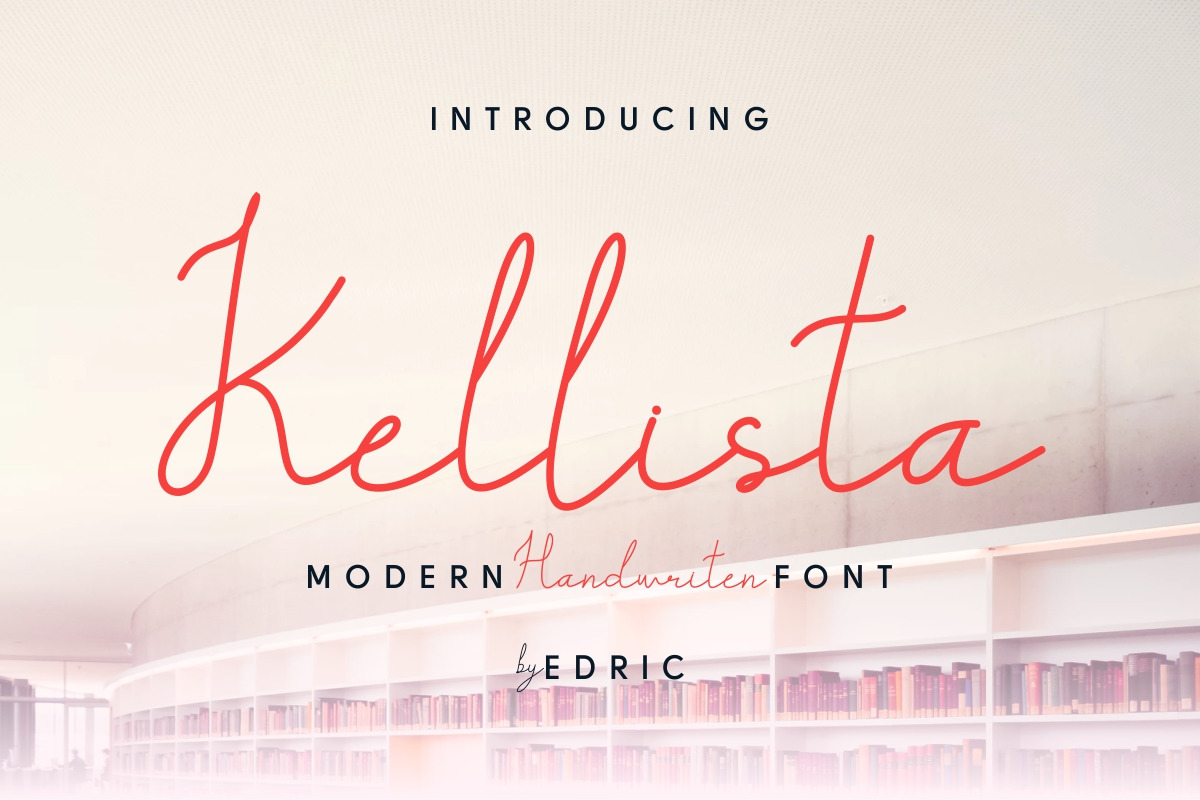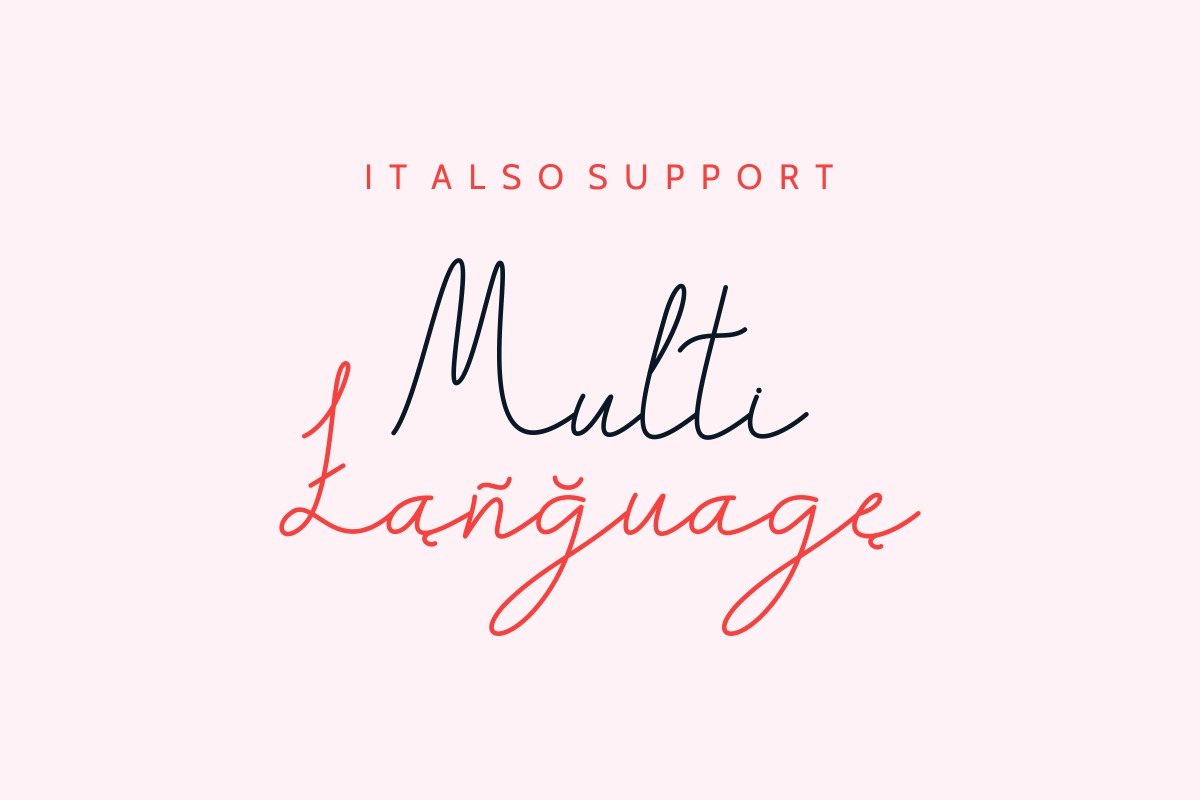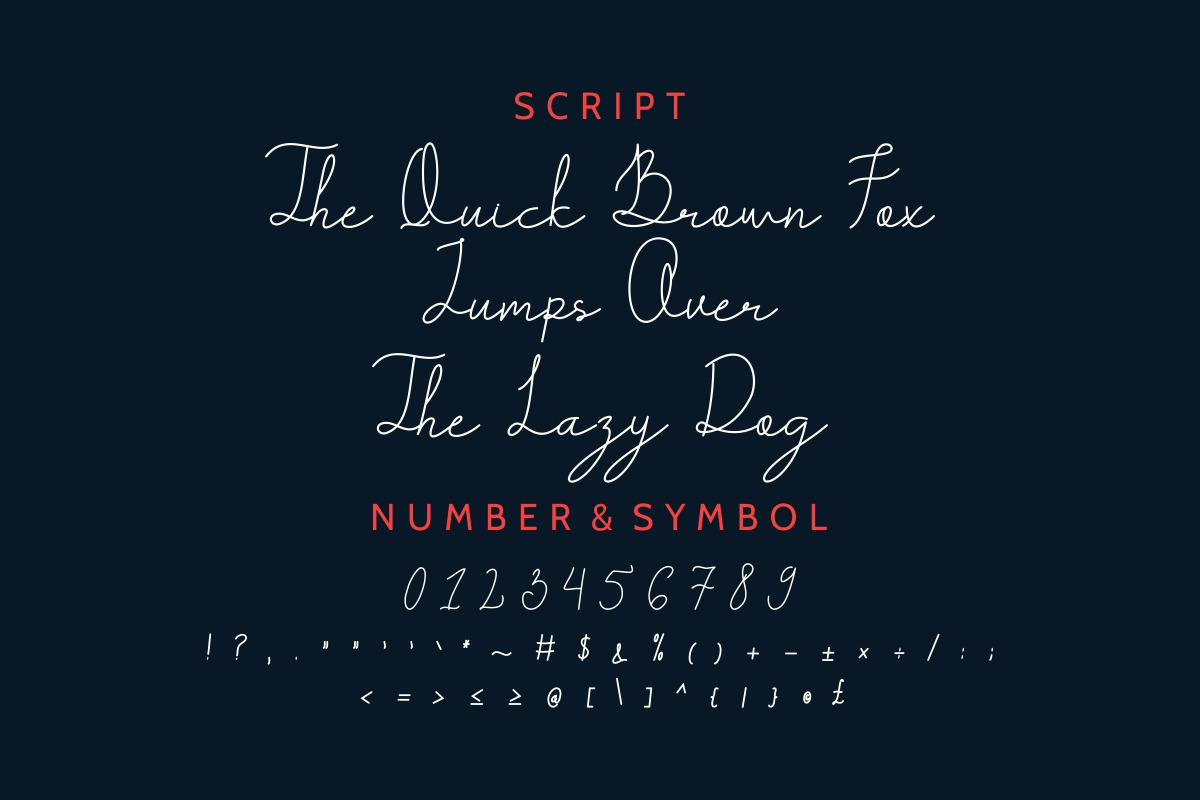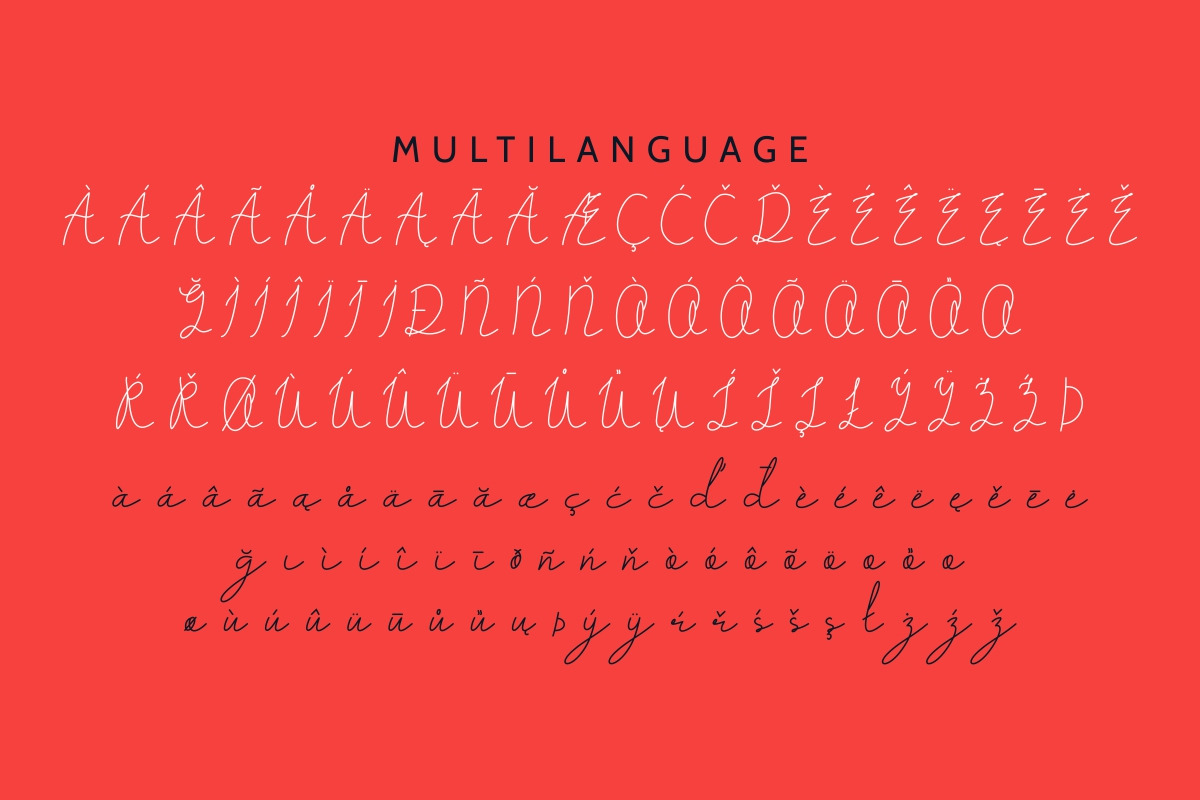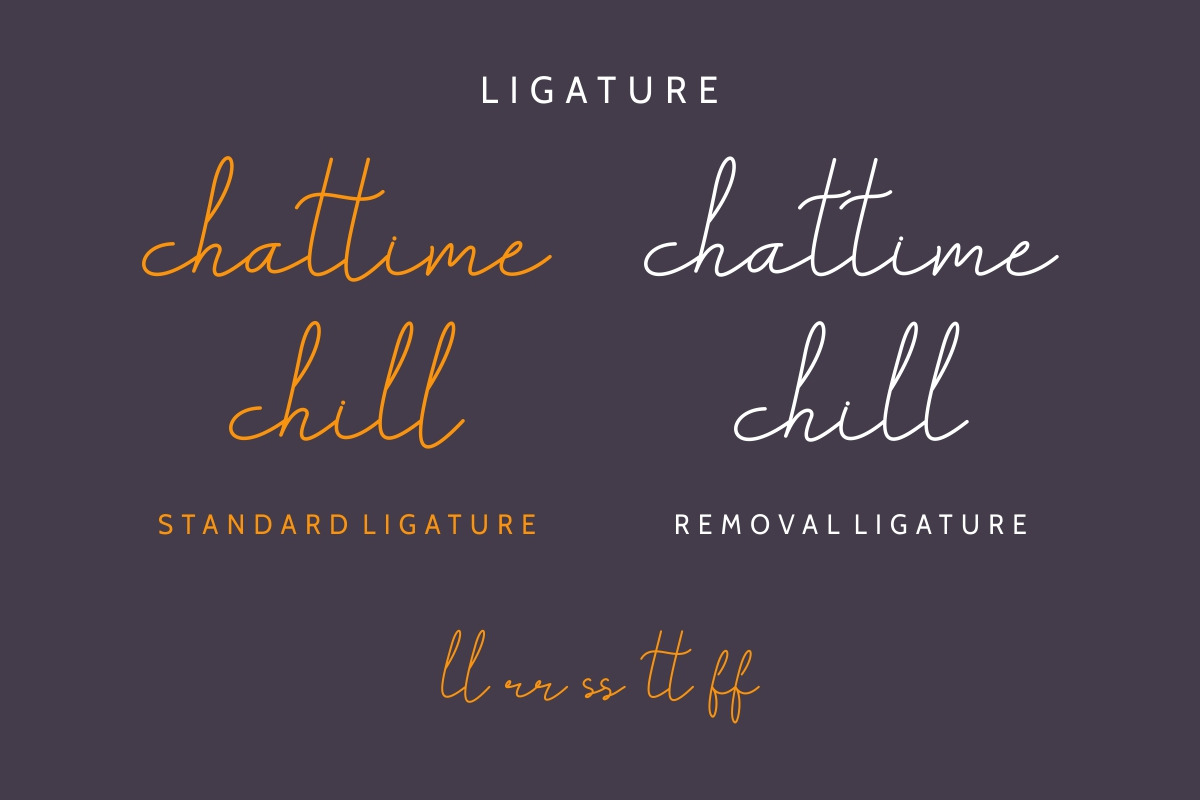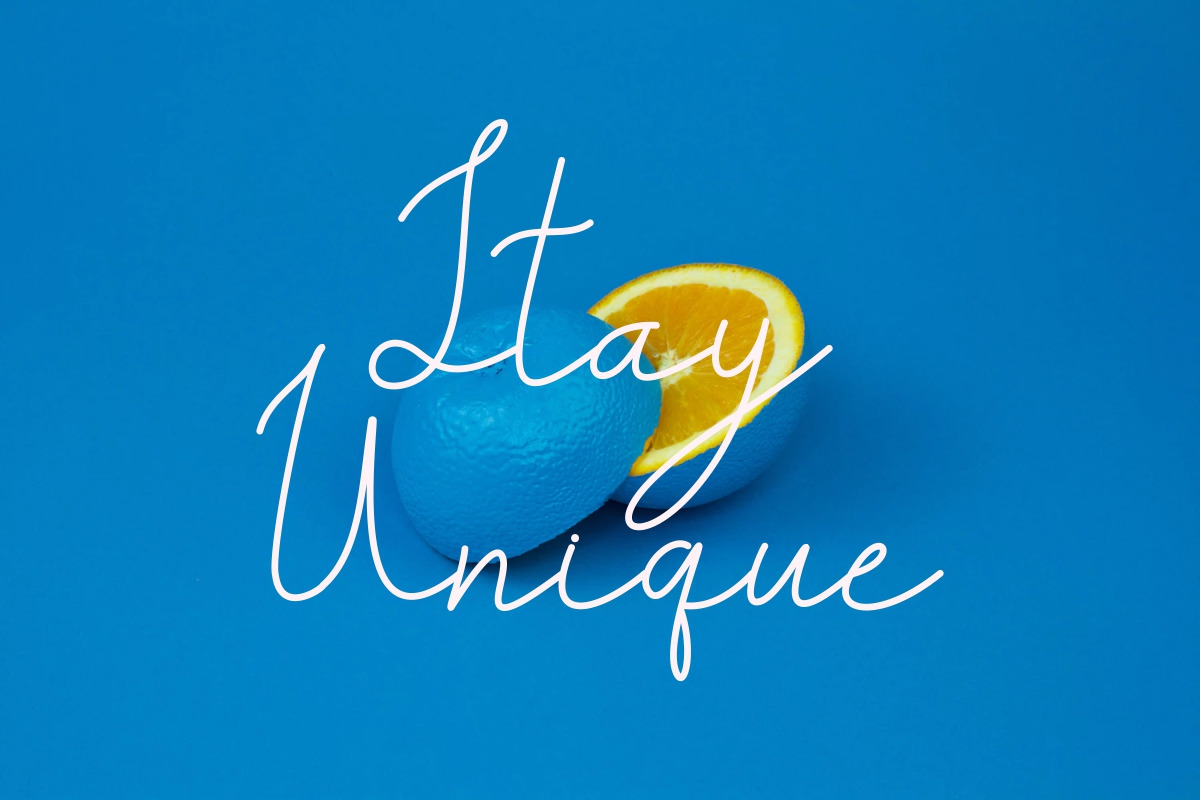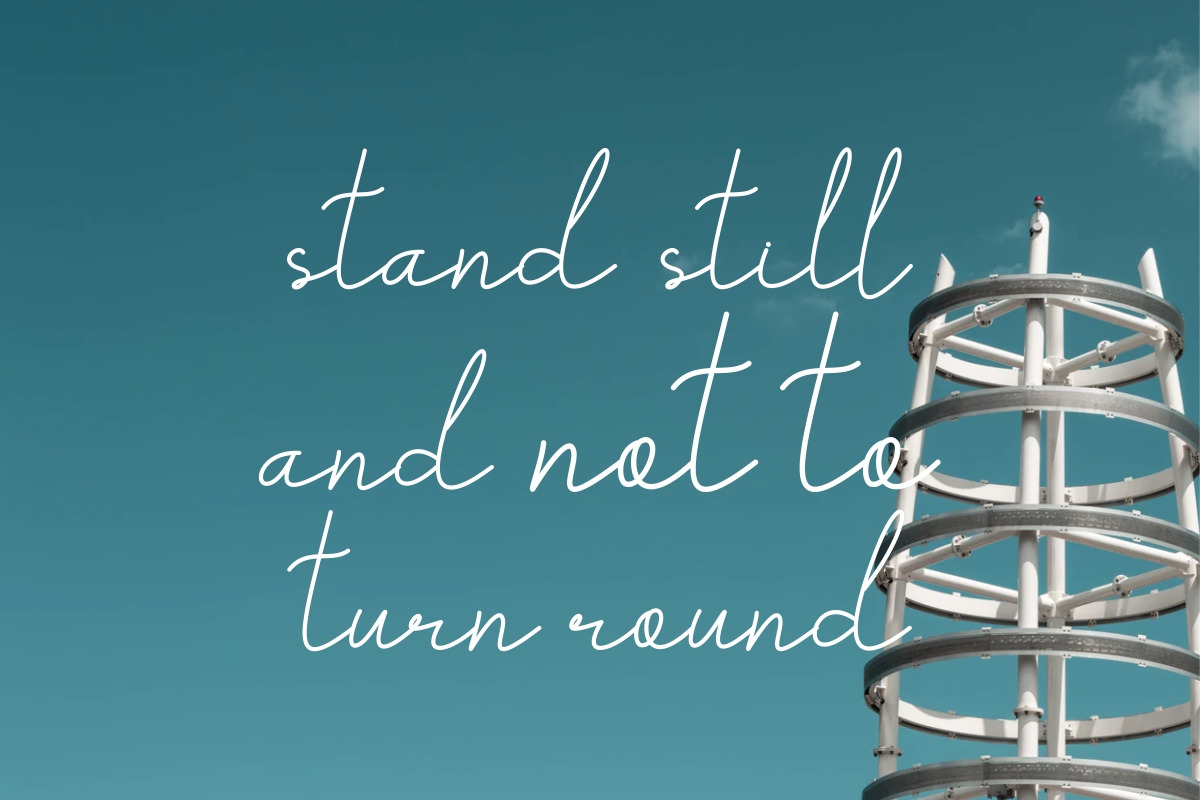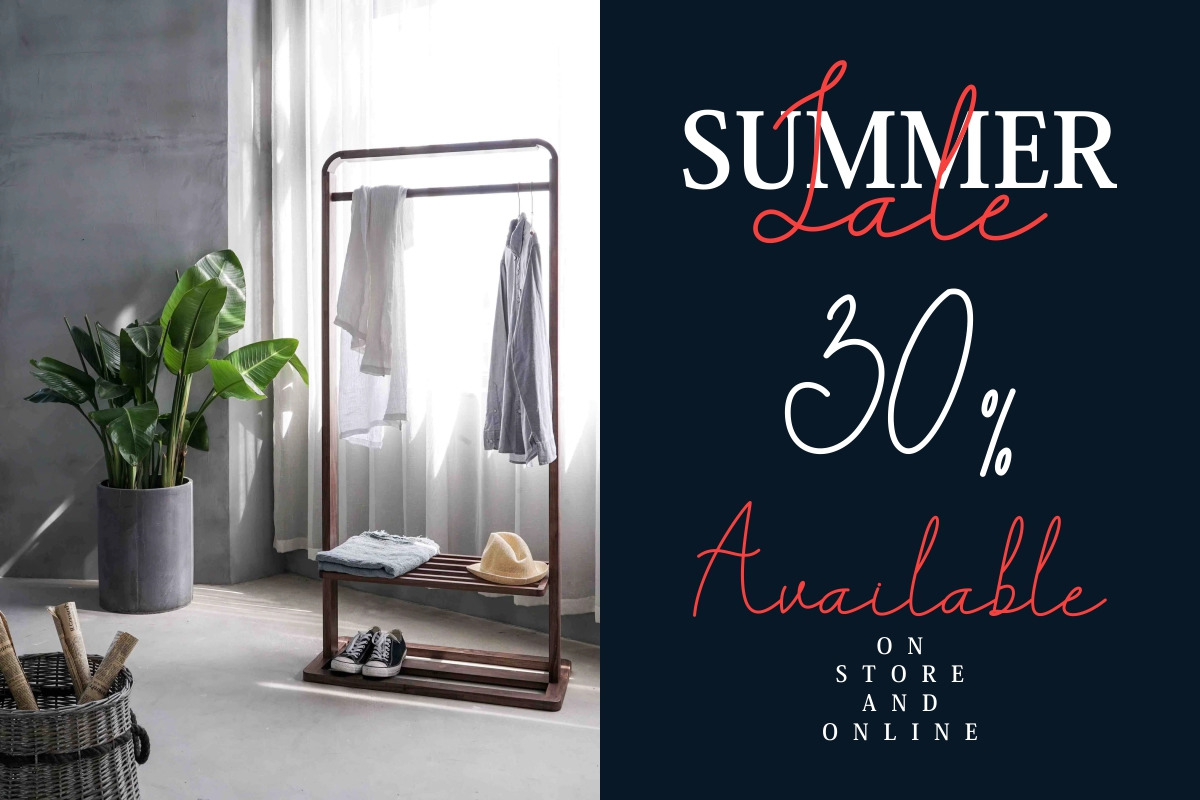
Kellista Handwritting Font
A stylish Script Font!
Kellista is a new modern decorative handwritting script font with stylish characters. It has a unique, elegant, and exclusive style. It’s handmade with “pen-look” monoline style.
Perfect for many industries and projects : Wedding, professional, person name, signature, modern, law firm, makeup artist, photography, travel, hotel, fashion, cafe, cake-food etc